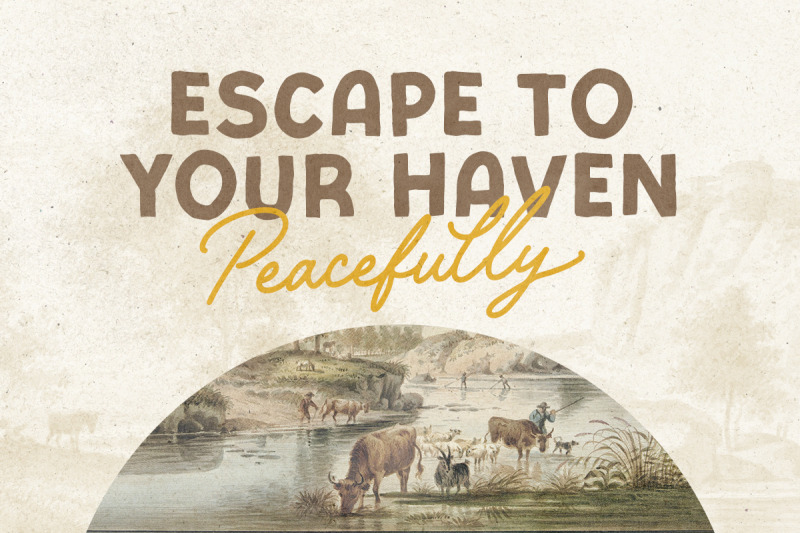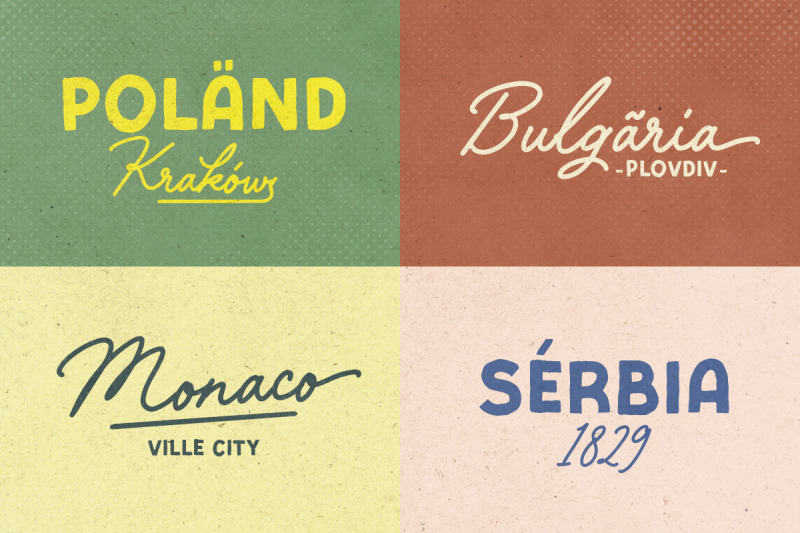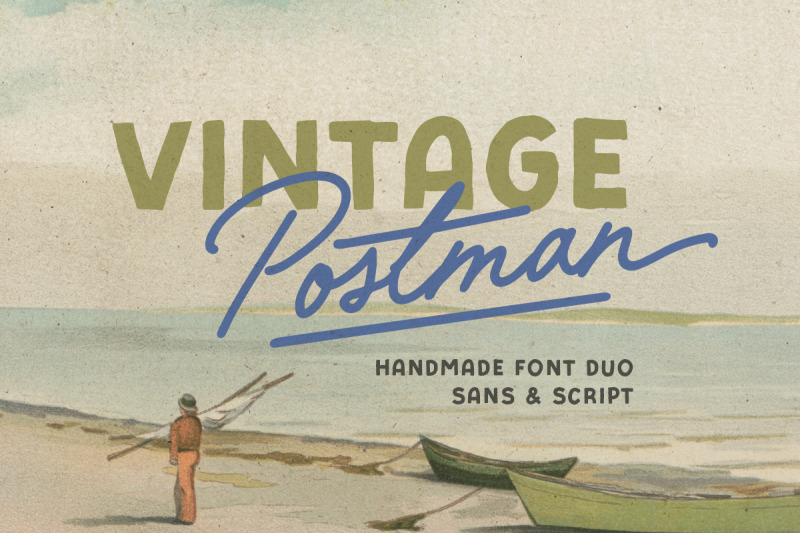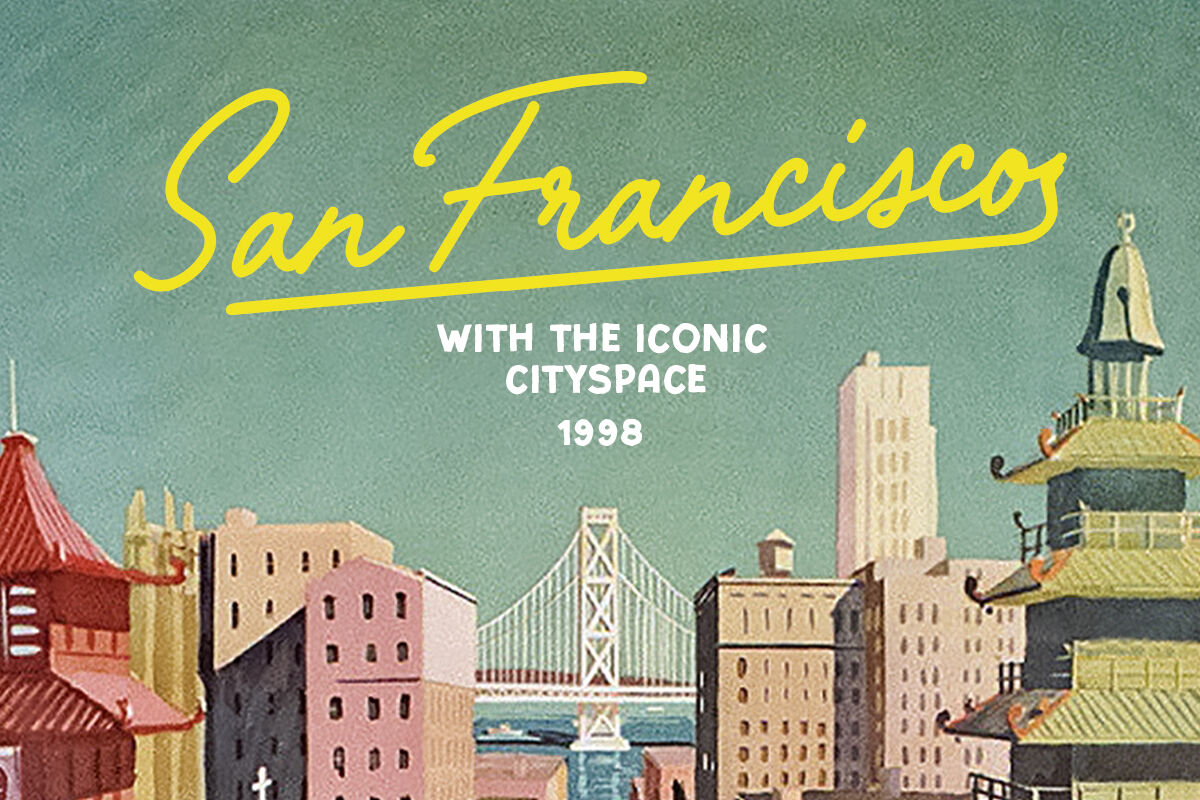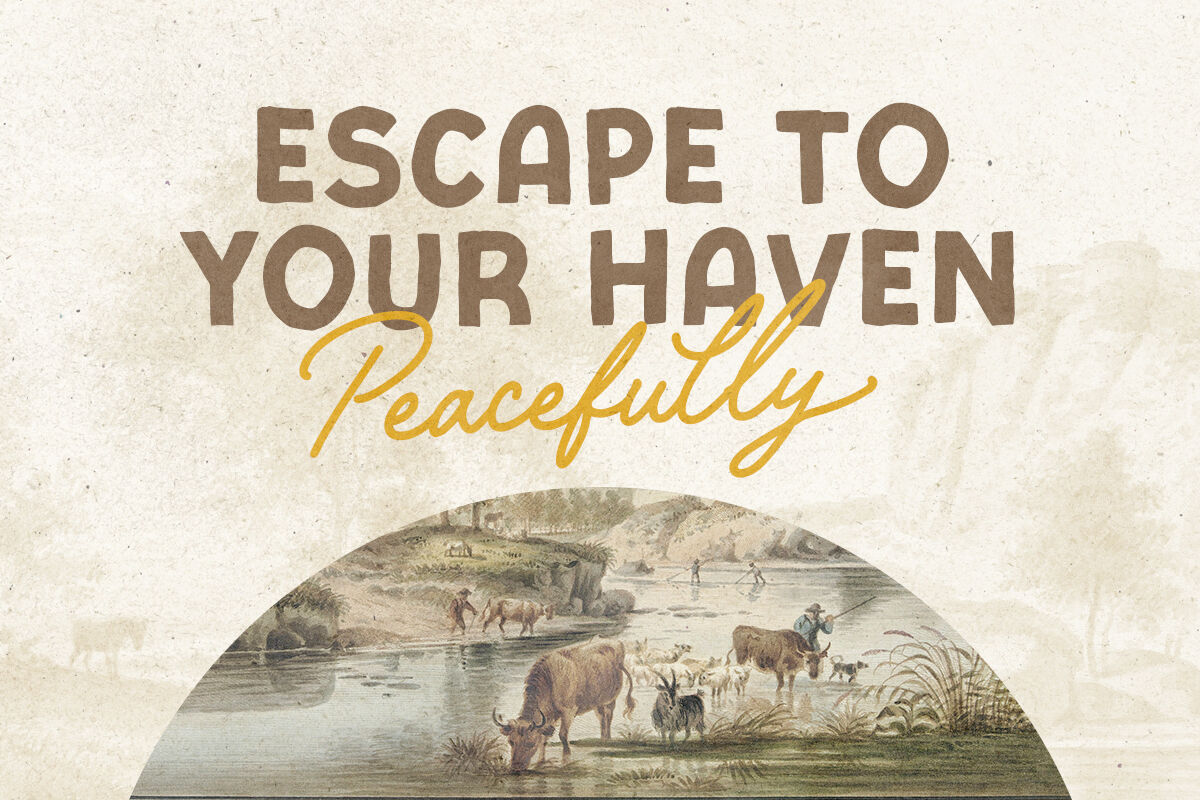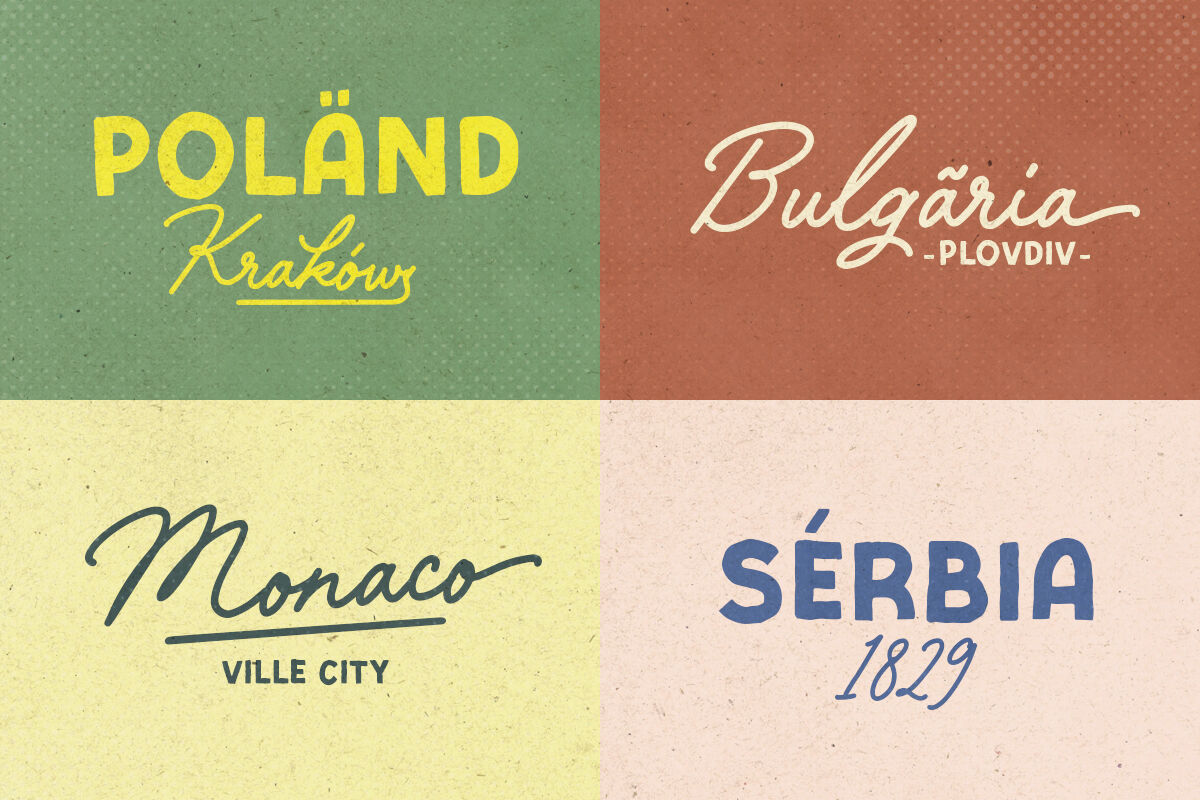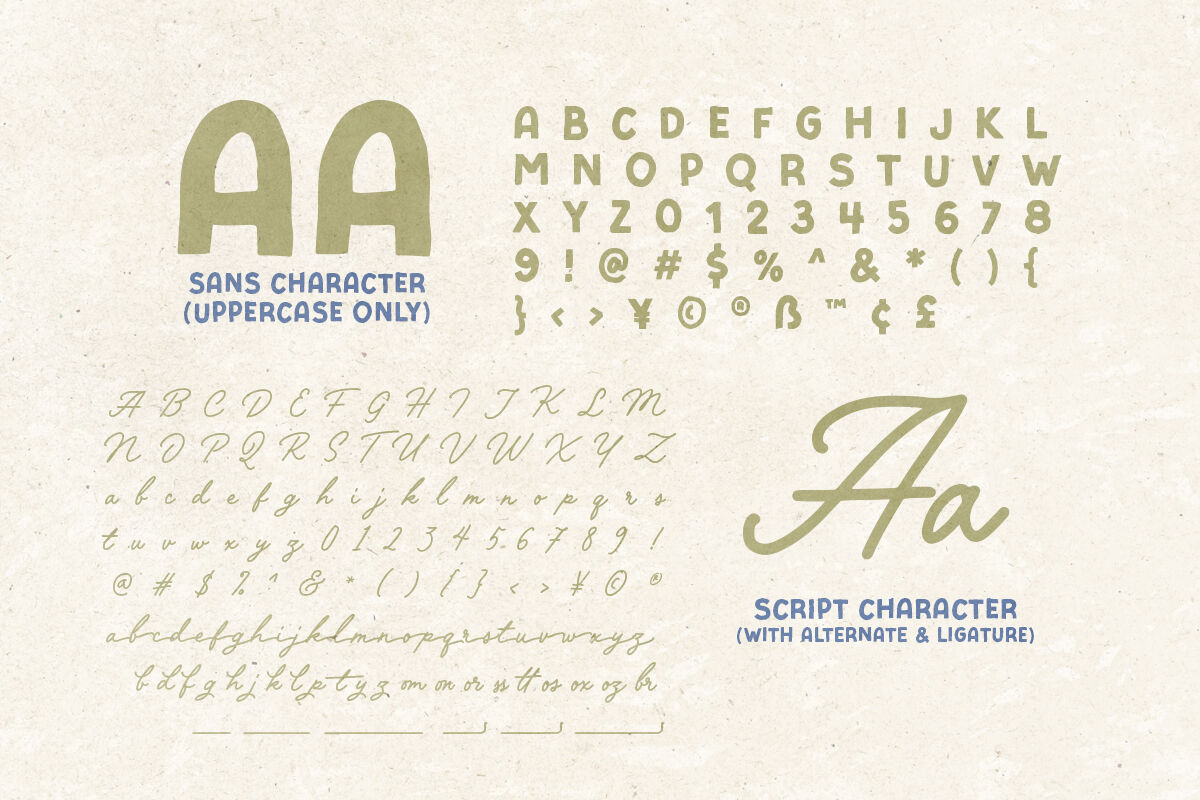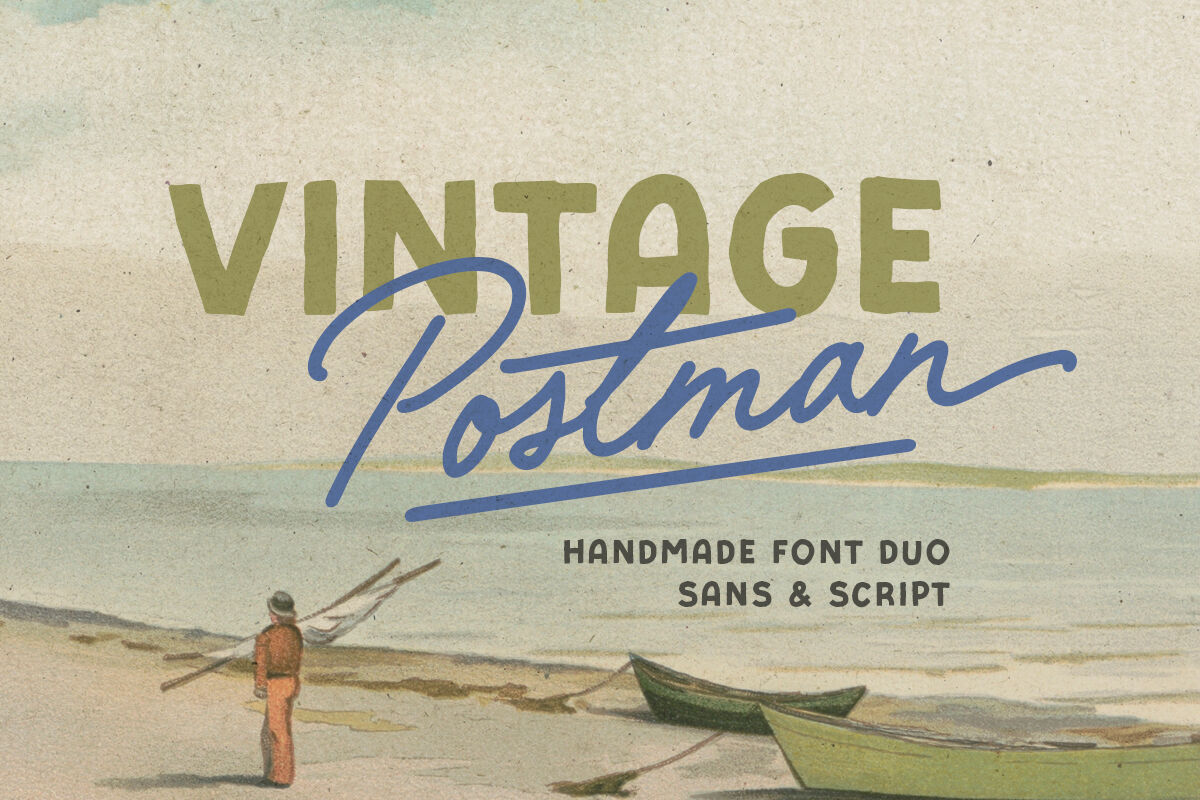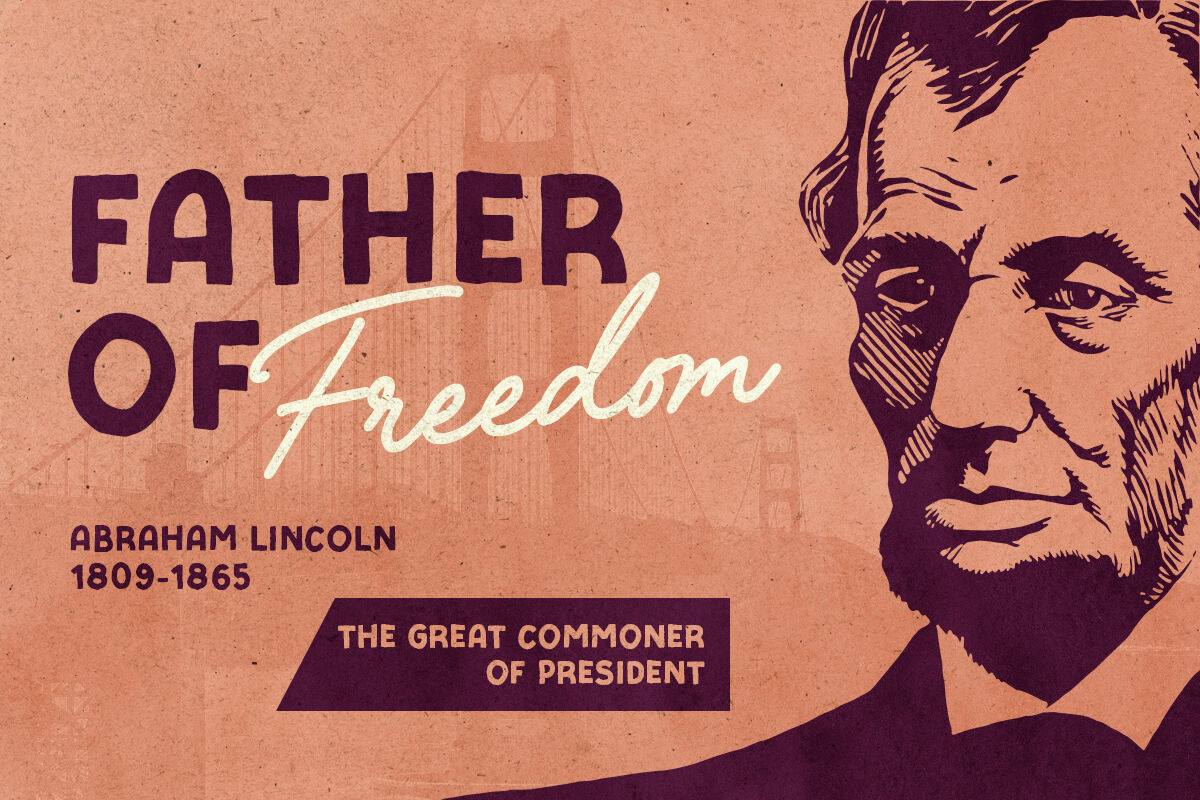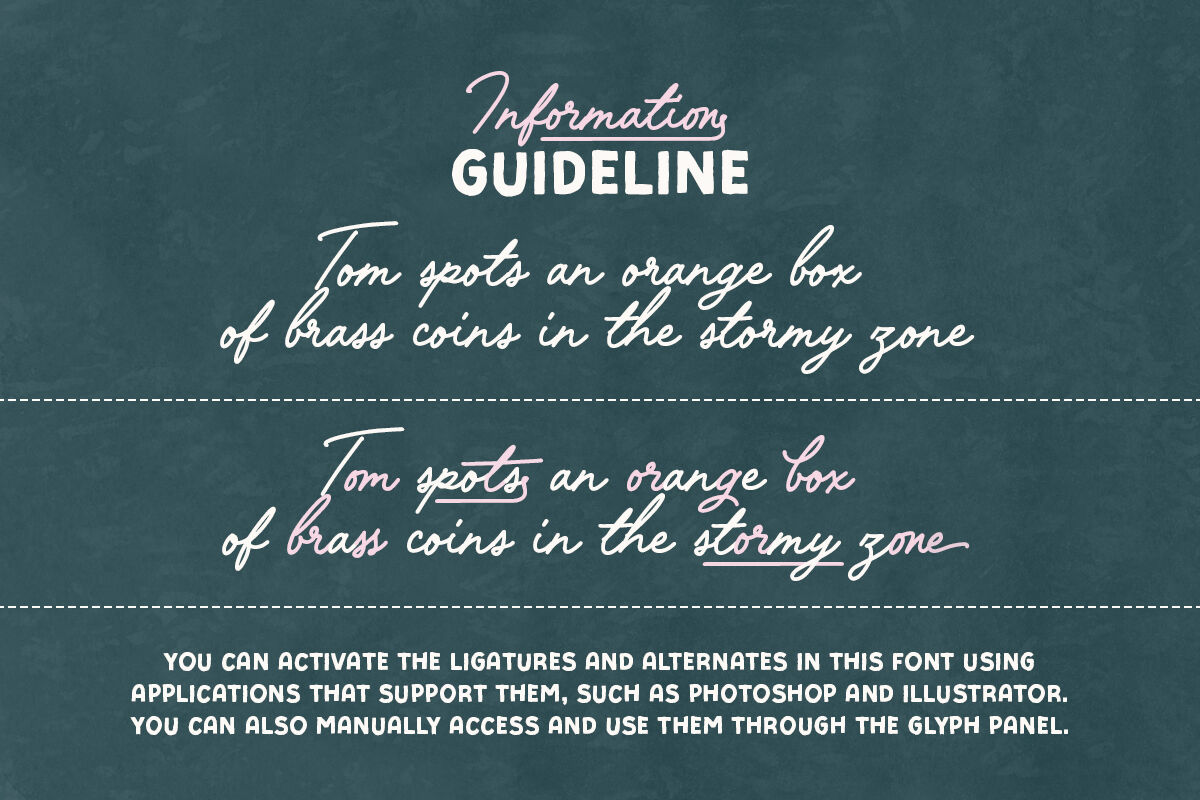
Vintage Postman - Handmade Font Duo
Vintage Postman is a handmade font duo that contains bold sans and monoline script. You can use this font for any purposes especially for design that needs retro and old vibes such as poster, logotype, quote, and branding. With alternates, ligatures, and lines from the script font that will make your project looks more appealing. This font duo also support multi language!
Vintage Postman Sans
Vintage Postman Script